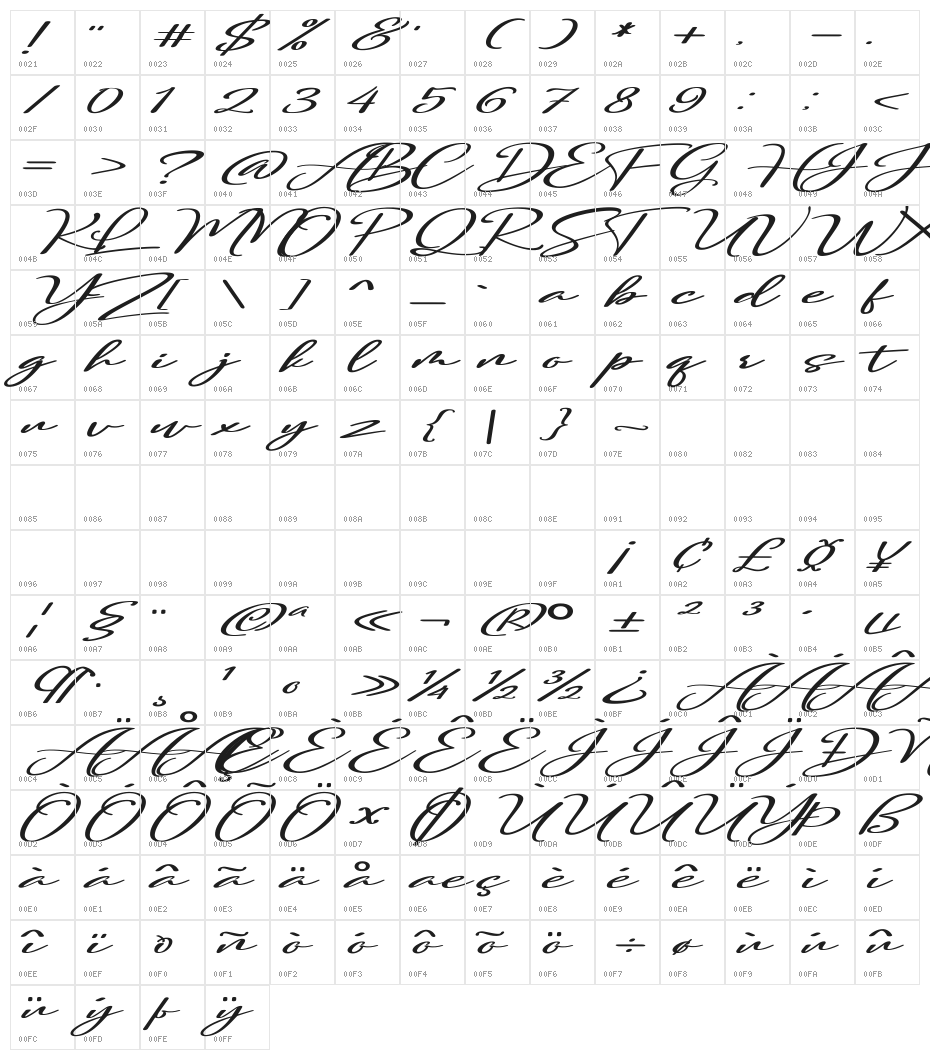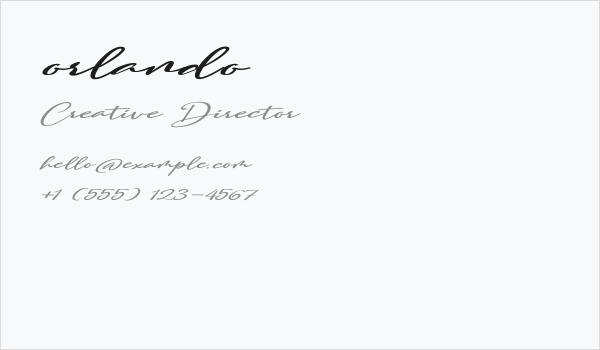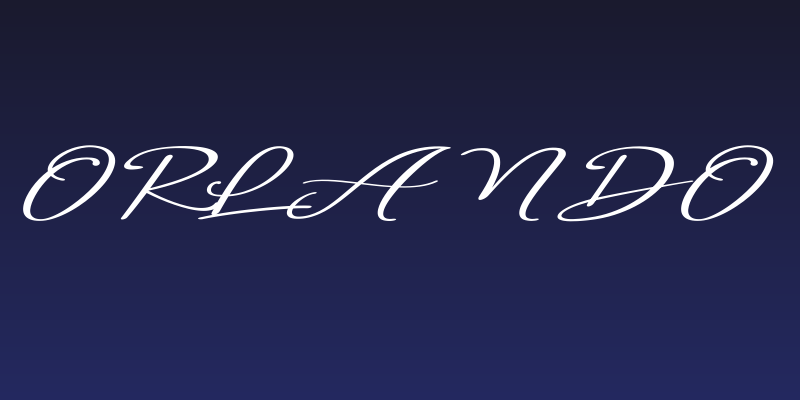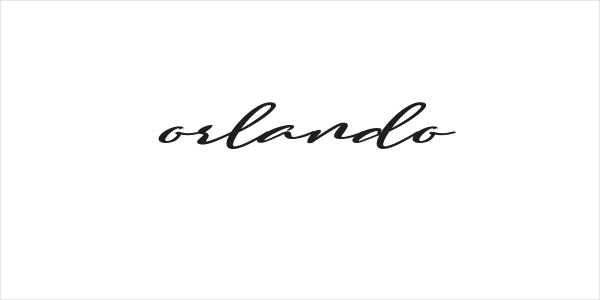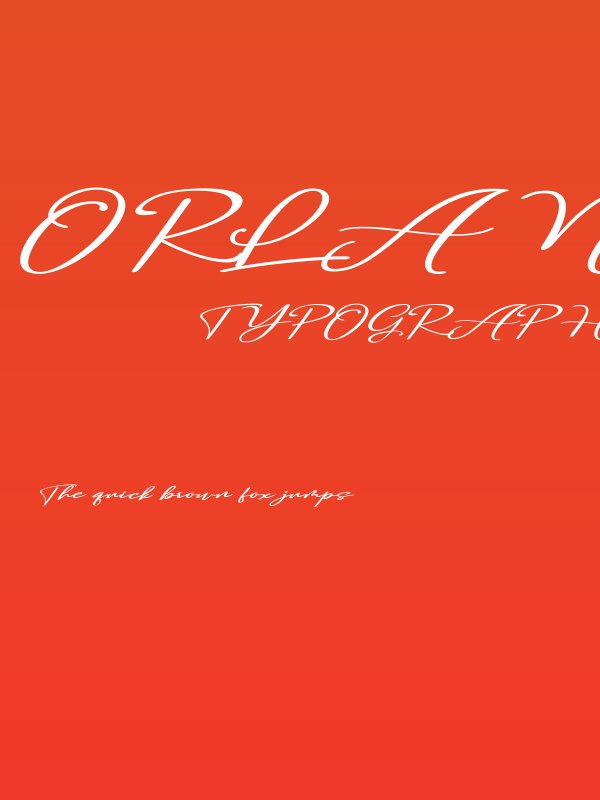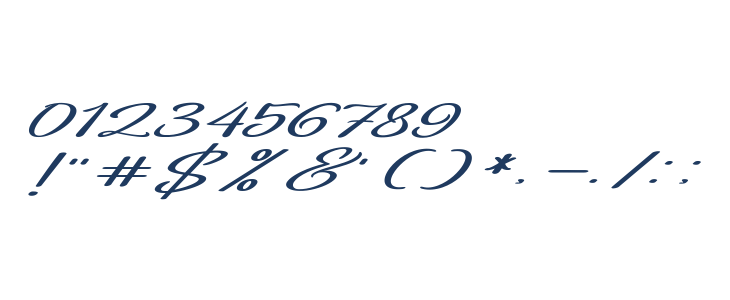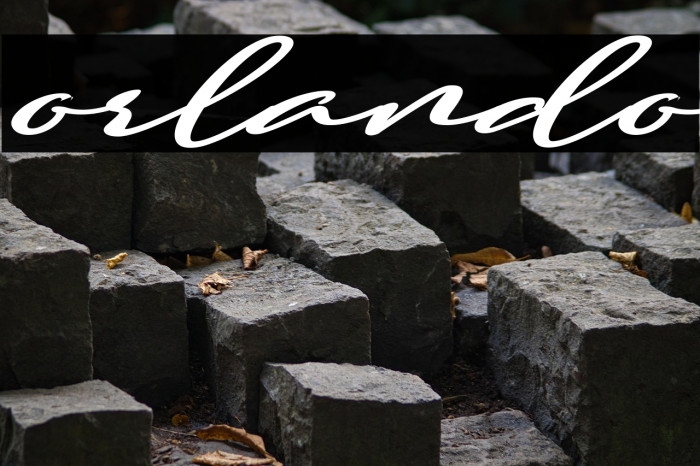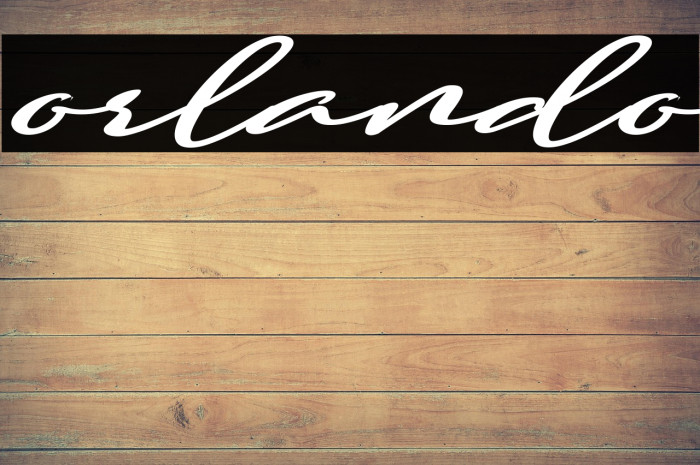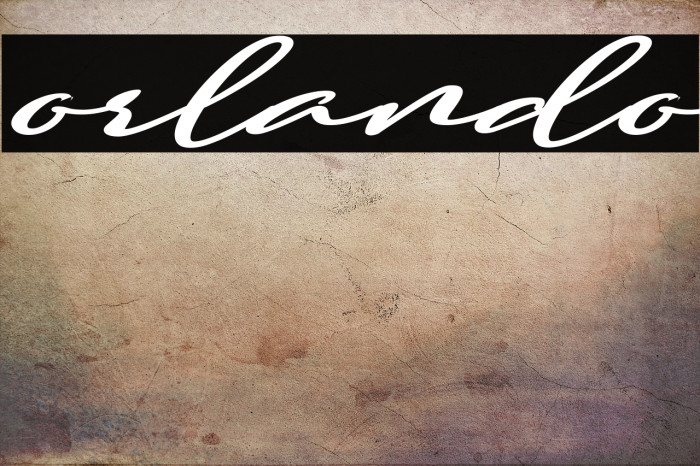
orlando Font
orlando Description
This elegant script font features a flowing, cursive style with smooth, connected strokes. The uppercase letters are graceful and elongated, while the lowercase letters maintain a consistent flow, enhancing readability. The numerals are stylishly integrated, maintaining the font's overall aesthetic. Special characters are crafted with the same attention to detail, ensuring a cohesive look. This font exudes sophistication and is perfect for projects that require a touch of elegance and class.